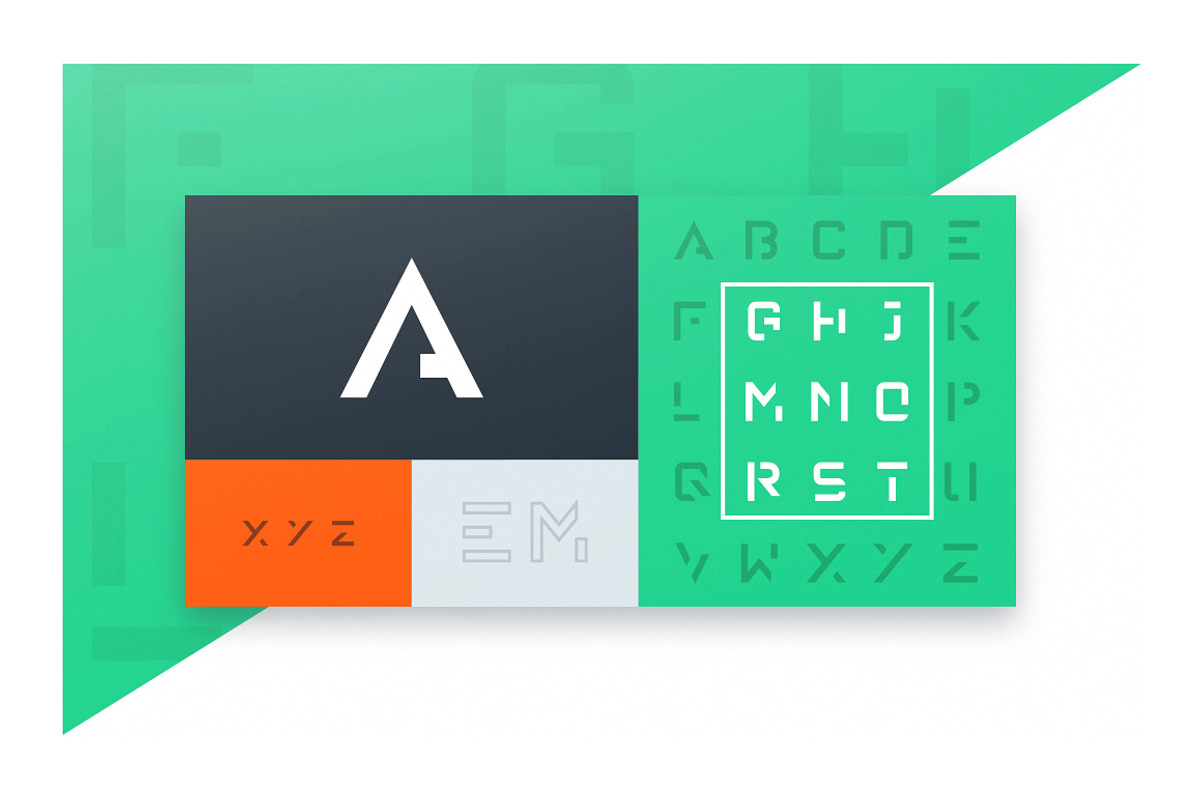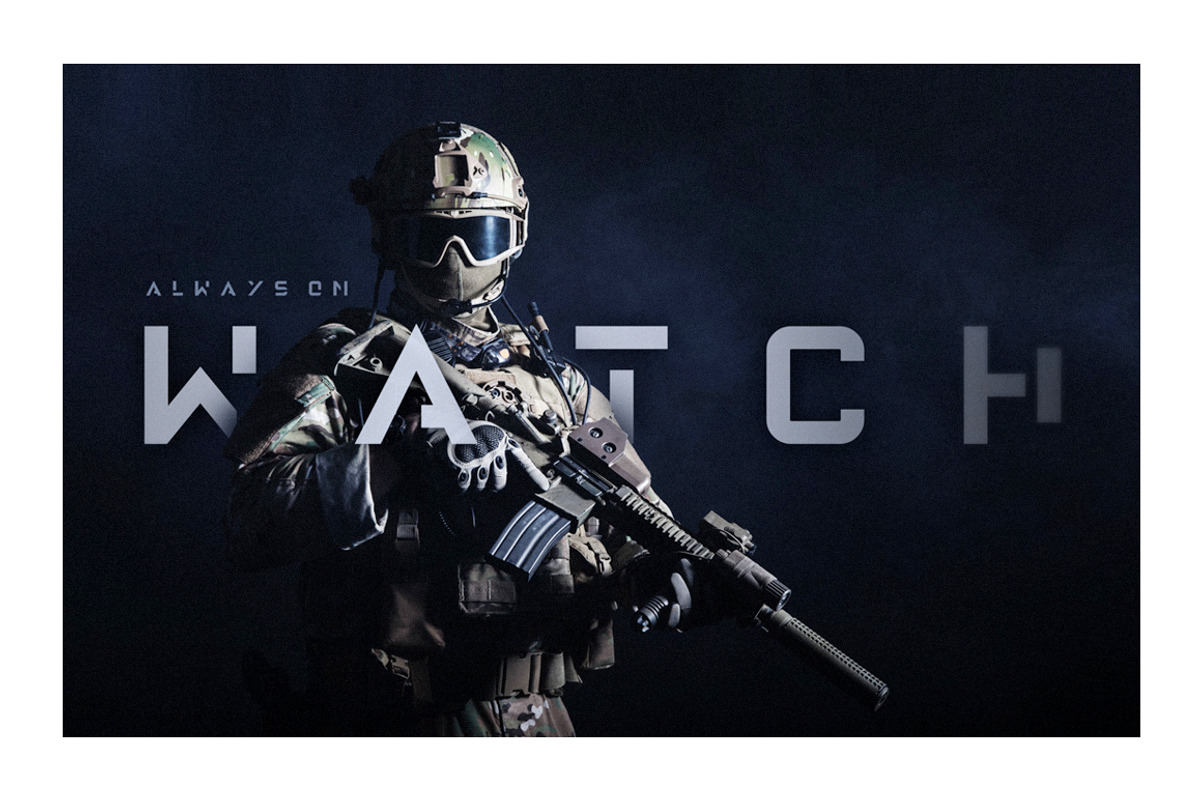
Raleigh - Premium Font + Alternate
Raleigh - Premium Font + Alternate by Creative Grenade is a font selected for branding, posters, packaging, typography.
Why Raleigh - Premium Font + Alternate is worth a look
Raleigh - Premium Font + Alternate by Creative Grenade fits naturally into Branding, posters, packaging, typography.